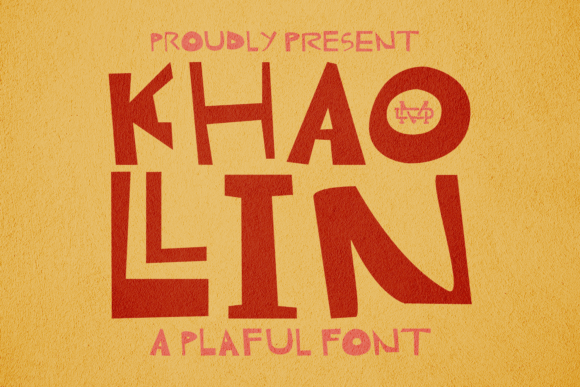
Welcome to the world of Khaollin, an extraordinary display font family that will ignite your creativity and leave you spellbound. Immerse yourself in the realm of typography and unveil the wonders of Khaollin, a font family meticulously crafted to bring your designs to life.
Khaollin is not just a collection of letters; it's an artistic journey waiting to be explored. Each character in this font family is a stroke of genius, an intricate dance of lines and curves that will mesmerize your audience. Whether you're a seasoned designer or a typography enthusiast, Khaollin is your gateway to creating masterpieces that inspire and captivate.
Born from the imagination of madeDeduk, a renowned font designer, Khaollin embodies the essence of playfulness and imagination. Its whimsical style is the perfect choice for adding a touch of magic to any project, from book covers and titles to branding, product packaging, invitations, quotes, t-shirts, labels, posters, and logos.
As you delve into the depths of Khaollin, you'll discover a vast array of possibilities. It's the perfect font for Christmas cards, its playful nature evoking the joy and wonder of the holiday season. Each letter dances and twirls like a snowflake, creating a visual symphony that will warm the hearts of your loved ones.
But Khaollin's versatility doesn't end there. Its charm extends to a wide range of applications. Imagine the impact it will have on your book covers, your titles soaring to new heights with an energy that will make them impossible to ignore. Your branding will take on a new life, your products wrapped in an aura of sophistication and elegance.
Khaollin is more than just a font; it's an experience. It's a chance to break free from the mundane and embrace the extraordinary. Its playful spirit will ignite your imagination, leading you down creative paths you never thought possible.
So, embark on this typographic adventure with Khaollin and let your creativity soar. Embrace the playful, the whimsical, and the extraordinary. With Khaollin at your fingertips, the possibilities are endless. Unleash your inner artist and transform your designs into captivating masterpieces.